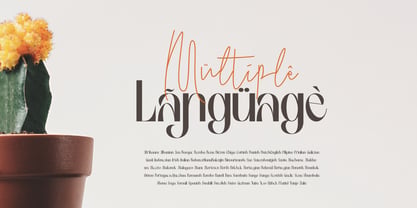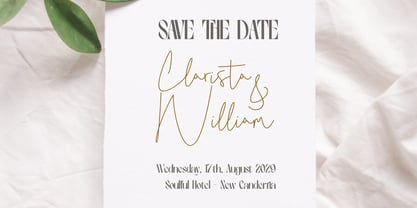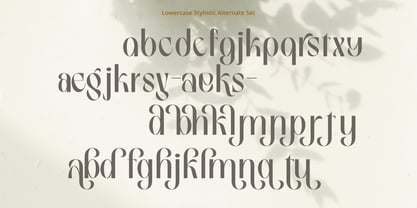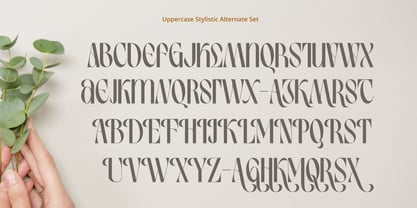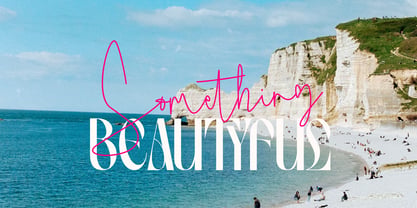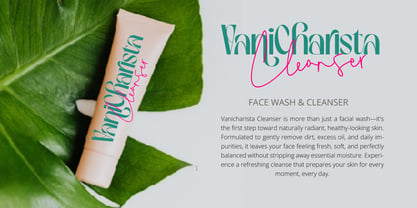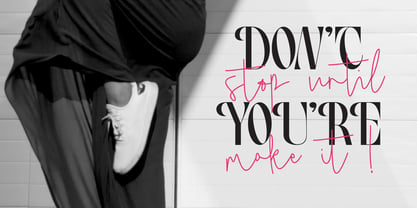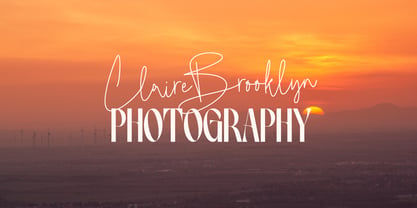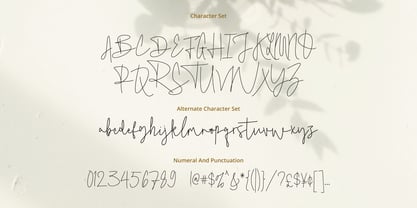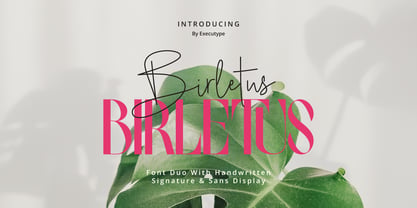
Birletus Display
The Birletus Display Font Family was designed by Dzulka Elfira and published by Tebaltipis Studio. Birletus Display contains 2 styles and family package options. More about this family
Birletus is a modern font duo that combines an elegant handwritten signature with a clean, bold sans display.
The script font brings a personal, romantic, and feminine touch, while the sans display adds strength and modern readability. Together they create the perfect pairing for logos, branding, and social media.
Perfect for:
Wedding Invitations, Logo, Beauty Brand, Photography, Fashion, Social Media, Branding, Product Packaging.
Birletus: Create something beautiful.